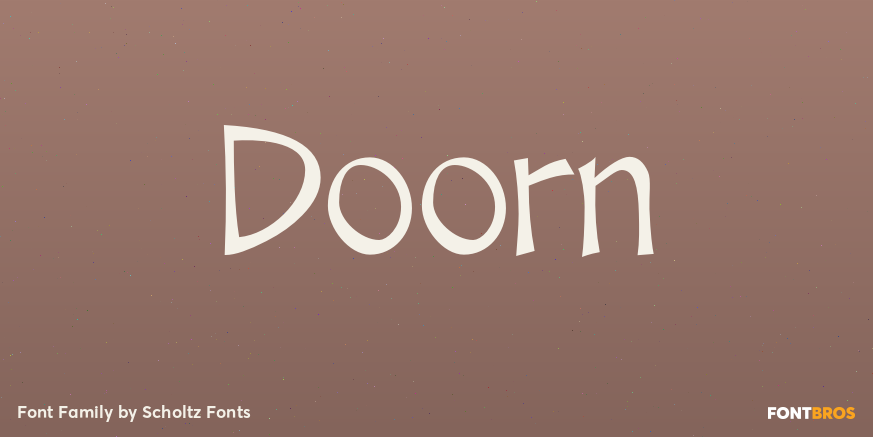
About Doorn
In its loose, angular forms, it is reminiscent of thorn bushes dotting the immense Kalahari desert. Spiky and freeform, Doorn calls to mind the irregular hand-drawn lettering found on wooden signs outside small shops in tiny African villages. The font…